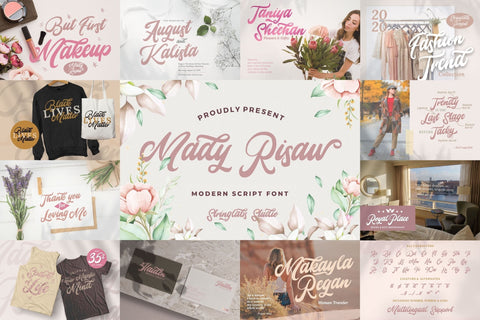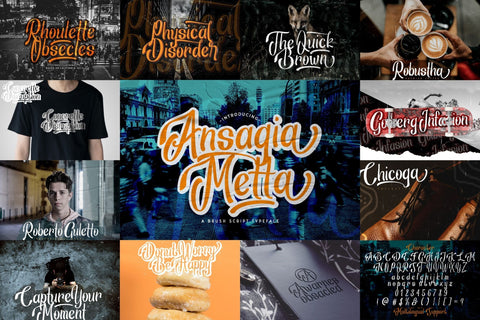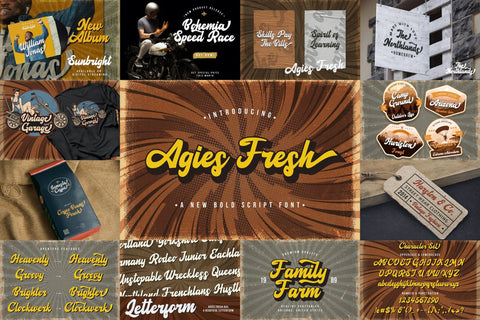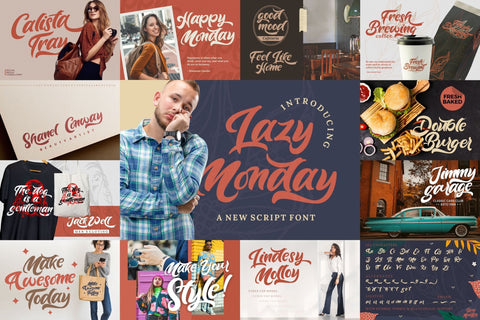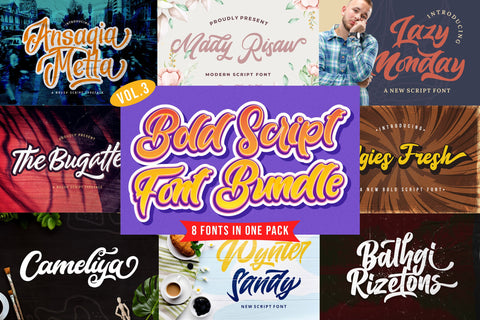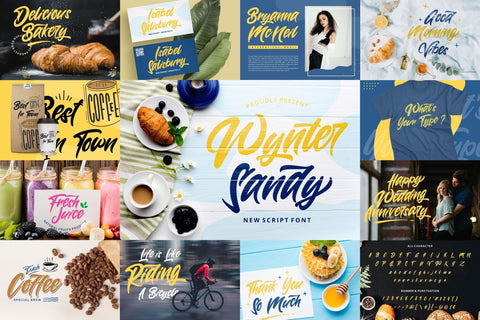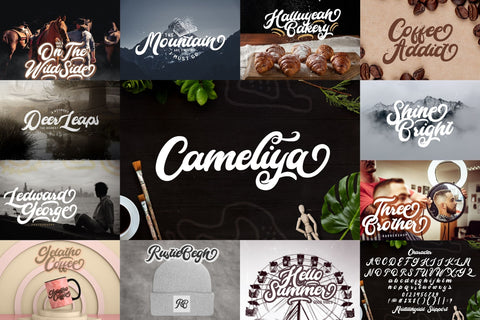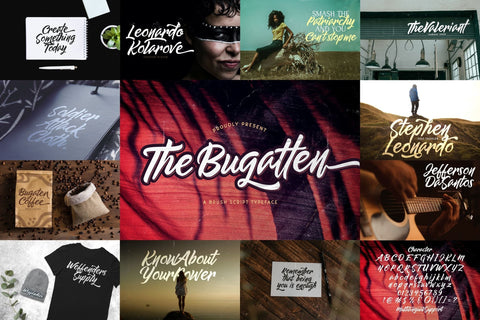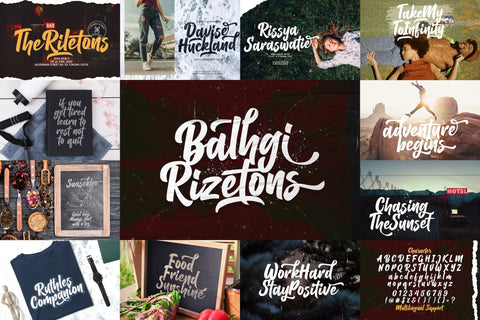
Bold Script Font Bundle Vol 3
Bold Script Font Bundle Vol 3 is a beautiful retro and vintage styled script font. This font bundle contains 8 high quality bold script font, It reads as strong, confident, and dynamic and can add tons of nostalgic character to your designs, and also that will look particularly adept when used in logos, branding, packaging design, and much more. It has beautiful and well balanced characters and as a result, it matches a wide pool of designs. Add it to your most creative ideas and notice how it makes them come alive!
FONTS INCLUDED :
1. Ansagia Metta
2. Agies Fresh
3. Balhgi Rizetons
4. Wynter Sandy
5. Cameliya
6. The Bugatten
7. Lazy Monday
8. Mady Risaw